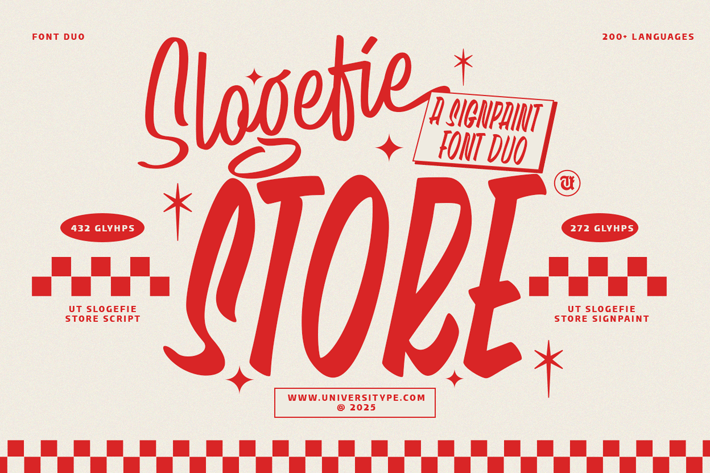
Slogefie Store Font Duo
UT Slogefie Store, a vibrant and versatile font duo that combines the charm of script with the boldness of signpaint. Perfect for creating eye-catching designs that stand out, UT Slogefie is ideal for branding, advertising, and any creative project that requires a touch of flair and personality.
This font is designed for graphic designers, branding agencies, marketing professionals, and anyone involved in creative projects that aim to capture attention and convey a sense of fun and energy.
Key Features:
Font Duo: Includes two complementary styles: a script for elegance and a signpaint for impact.
Multilingual Support: With glyphs for over 200 languages, making it a global-friendly choice.
Extensive Glyph Set: 432 glyphs for the script and 272 for the signpaint, offering a wide range of characters and symbols.
Versatility: Suitable for both digital and print media, ensuring consistency across all platforms.
Features: Includes ligatures, alternate characters, and stylistic sets to provide additional creative options.